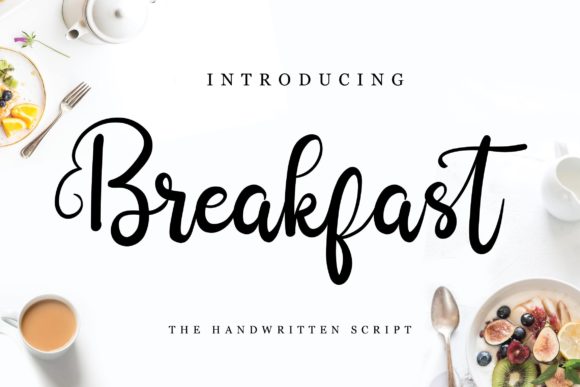
The Breakfast Font: A Beautifully Enchanting Handwritten Font
I’ll never forget the design project that led me to discover the Breakfast Font. I was working on a branding project for a trendy new café, and I was struggling to find the perfect font to capture their playful yet sophisticated vibe. That’s when I stumbled upon Breakfast Font, and it completely blew me away. The beauty of its curvature and elegant handwritten style made it an instant favorite. In this article, I’ll share my experience with Breakfast Font, its features, and how to make the most of it in your designs.
A Personal Review of Breakfast Font
So, what makes Breakfast Font so special? Here are some things I love about it:
• ✨ Beautifully crafted handwritten letters with elegant curvature
• ✅ Suitable for both formal and informal designs
• 💫 Works well for titles, headings, and short paragraphs
• 🎨 Highly versatile and can be used for various design projects, from branding to packaging
While Breakfast Font is an amazing font, it’s not perfect. Here are some small quirks to keep in mind:
• 🤔 Limited availability of stylistic alternates, which might limit its use in certain designs
• ⚠️ May not work well for long blocks of text due to its decorative nature
Breakfast Font comes with a range of OpenType features and glyphs that can enhance your designs. Here are a few tips on how to access and use them:
• 🔍 Experiment with stylistic alternates to add visual interest to your text.
The Story Behind Breakfast Font
While I couldn’t find any information on the designer’s background, it’s clear that Breakfast Font was crafted with love and attention to detail. The font’s elegant curvature and beautiful handwritten style make it a true gem in the world of typography.
What is Breakfast Font best used for? Breakfast Font is suitable for a wide range of designs, from formal branding to informal social media graphics.